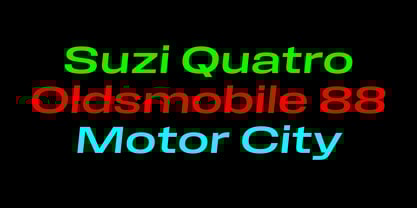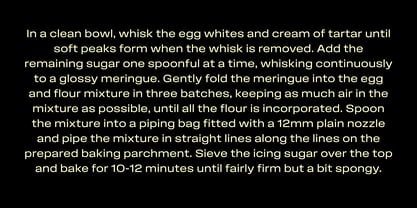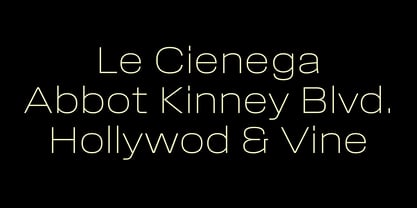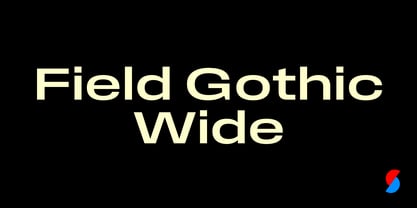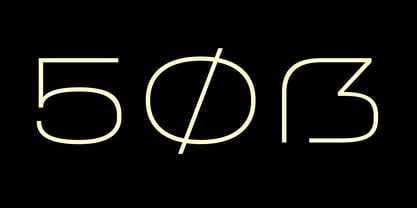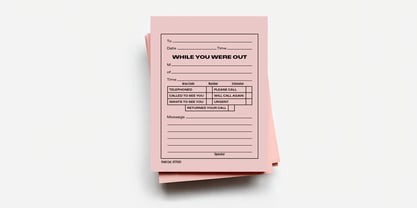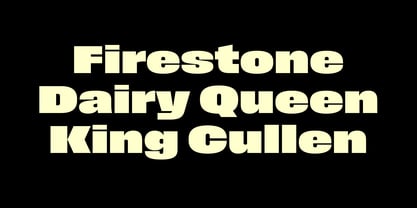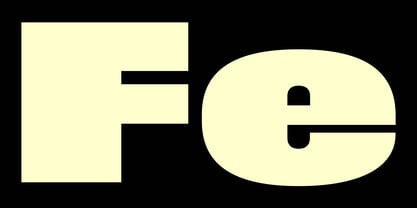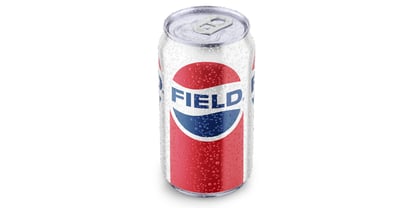
Field Gothic Wide
The Field Gothic Wide Font Family was designed by Max Phillips and published by Signal Type Foundry. Field Gothic Wide contains 32 styles and family package options. More about this family
The Field Gothic journey concludes with the Wide and X-Wide styles. Their broad, expansive forms were drawn from memories of our dad’s Columbia and Blue Note jazz albums, of signage at Eero Saarinen’s old TWA terminal, and of midcentury auto-parts packaging at our local garage. As with the Narrow and Standard ranges, the type is crisp and coolish, with a robust x-height, slightly superelliptical curves, almost monoline light weights and, in the bolder styles, snug fit and sharply contrasting junctures.